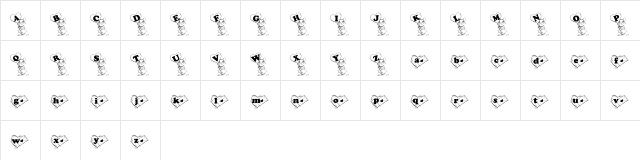
KGVMICE Regular
Design Context for KGVMICE Typeface
KGVMICE is a composed and adaptable typeface that performs quietly and consistently across a wide range of design contexts.